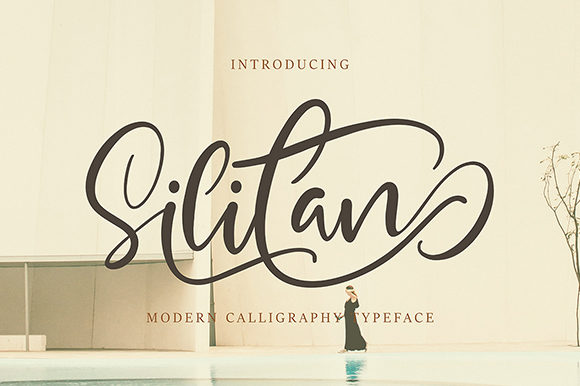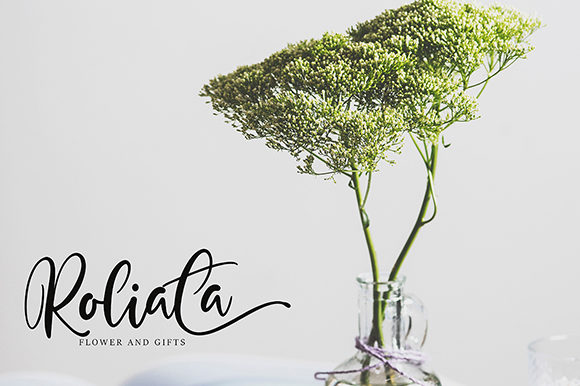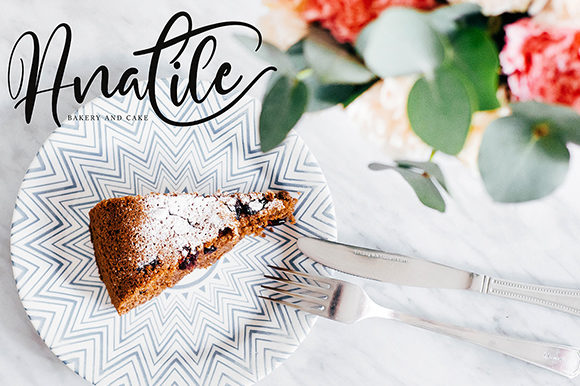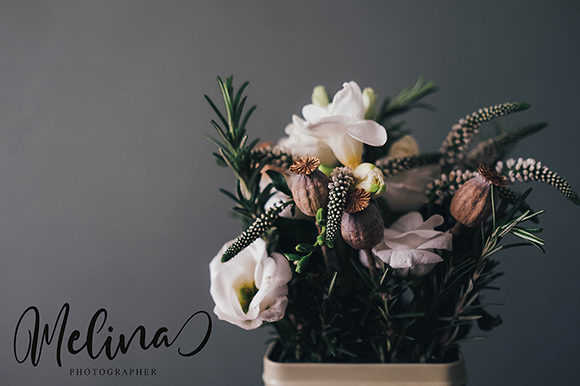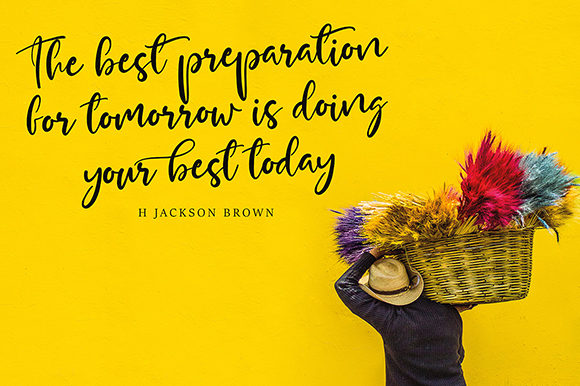
Silitan Font
About Silitan Font
Silitan is an amazing script font with beautiful swashes. It will elevate any design project with its effortless beauty.